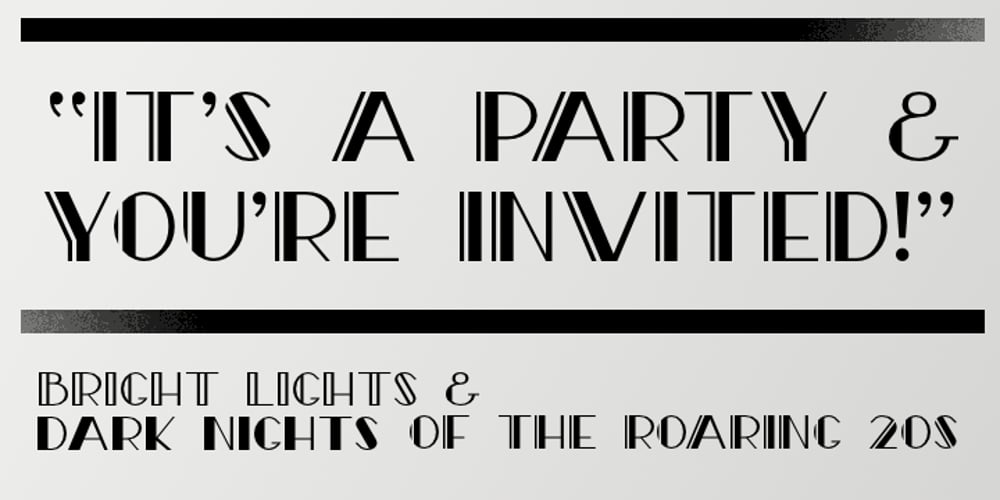
Roaring 20s Font Family was designed by Thomas Käding and published by Thomas Käding. Roaring 20s contains 3 styles and family package options. This is a decorative font containing the letters A-Z, numbers 0-9, and enough punctuation to make invitations, playbills, posters, and the like. It is meant to have the feel of the theatre district early last century. “Roaring 20s” comes in three styles: regular/engraved, hollow/white, and black. Enjoy!